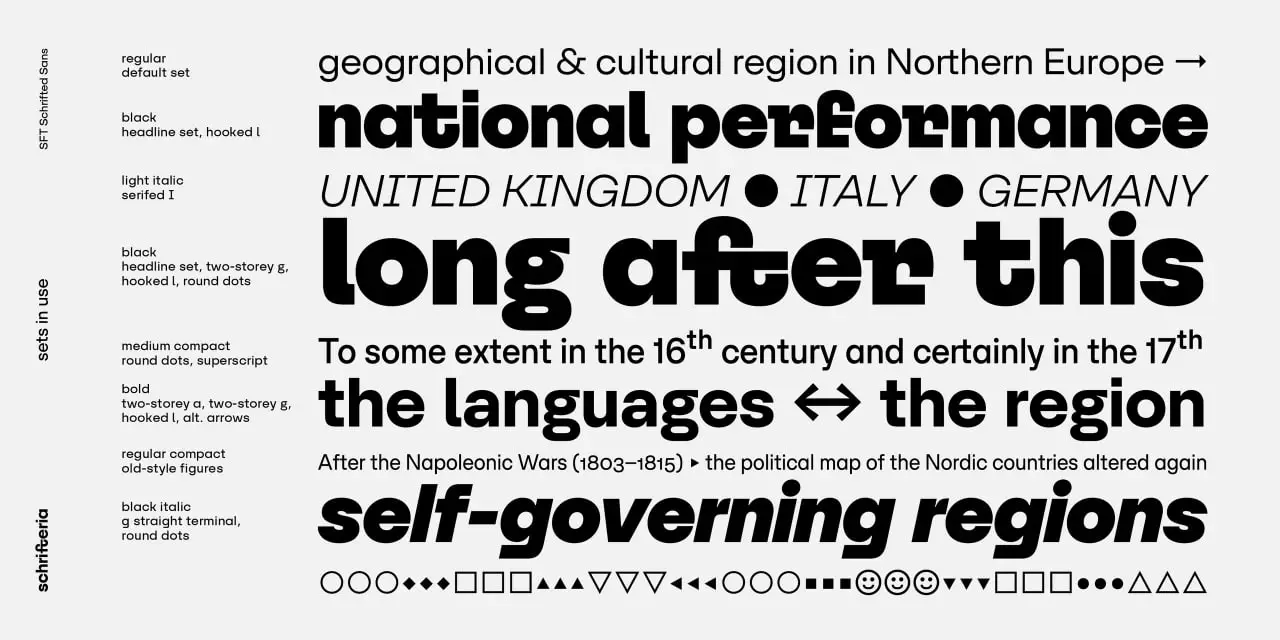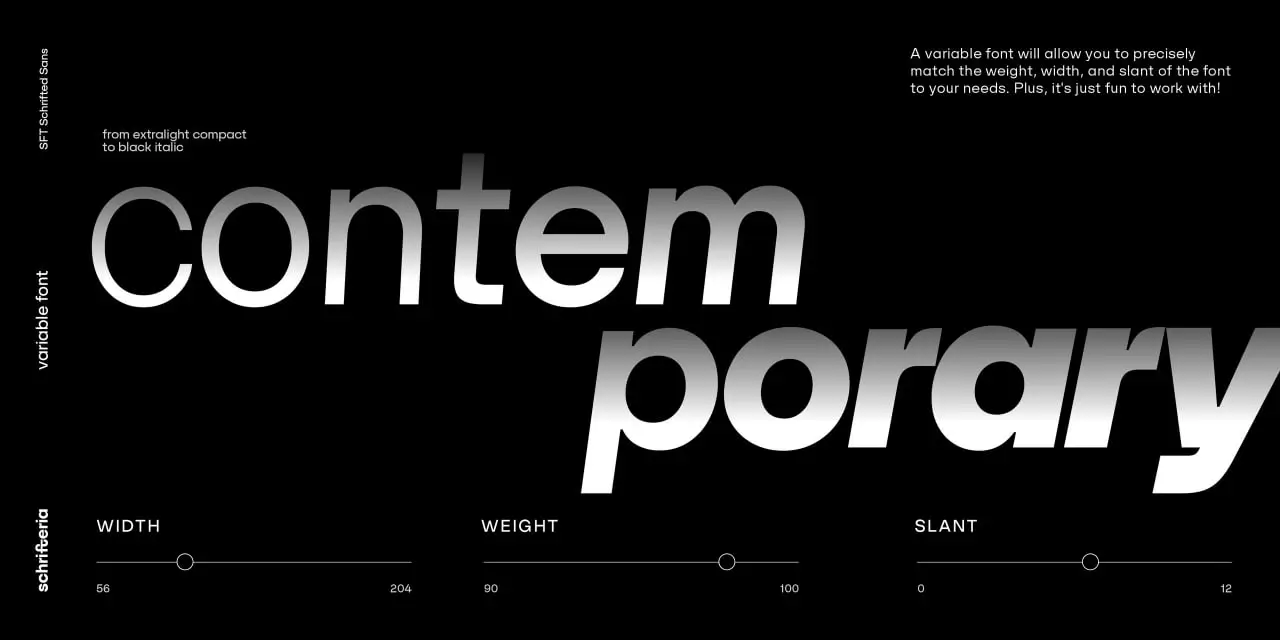
Sft Schrifted Sans 1 110 is a modern sans-serif font designed by Yulia Gonina at Schrifteria Foundry, featuring a clean and versatile aesthetic. This font supports Cyrillic characters, making it an excellent choice for projects that require a contemporary look with regional language support.
- Stylish sans-serif design
- Supports Cyrillic characters
- Clear legibility at various sizes
- Weights: Regular, Bold
This font is ideal for branding, logos, web design, print materials, and user interfaces. Its modern style makes it suitable for both professional and creative projects.